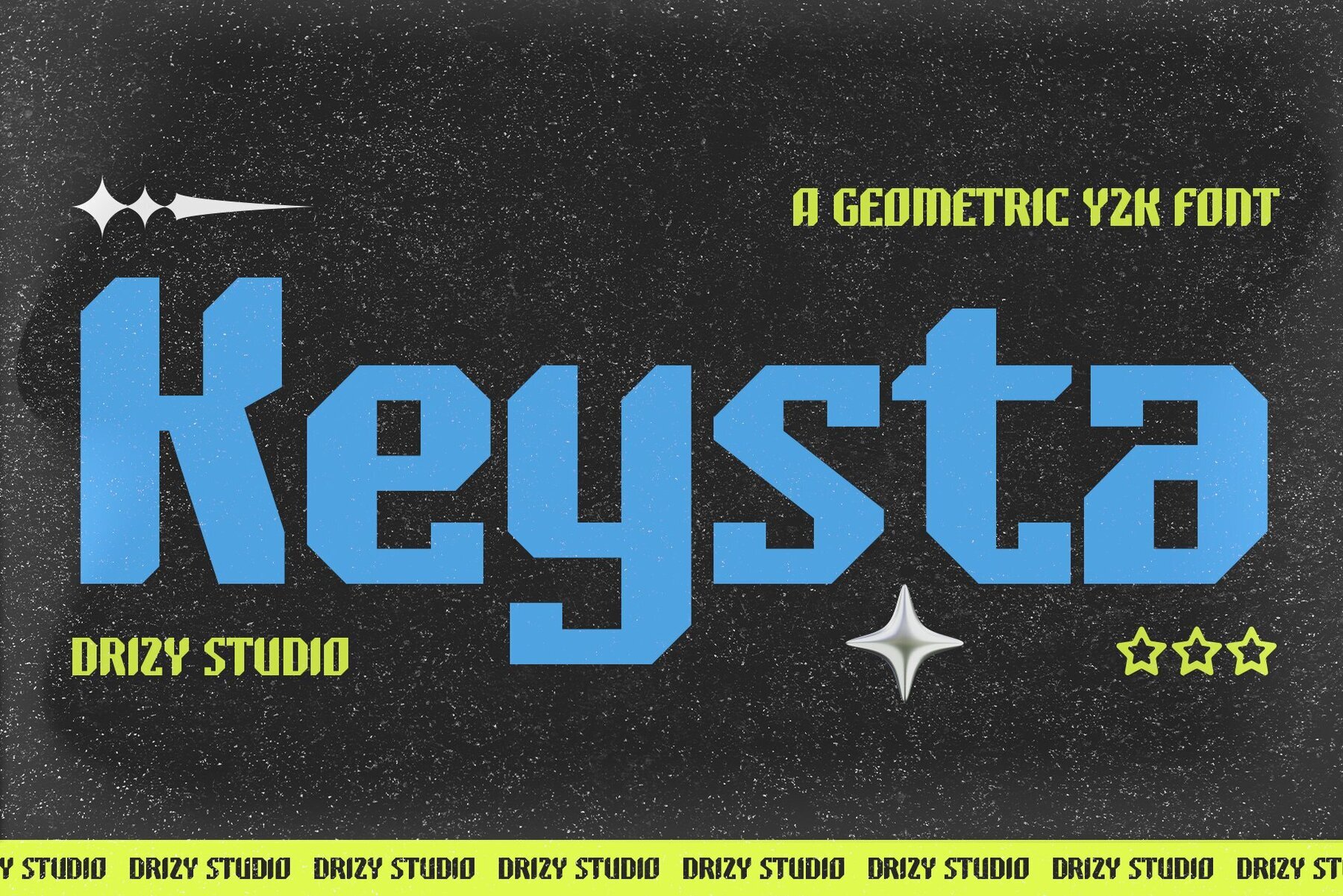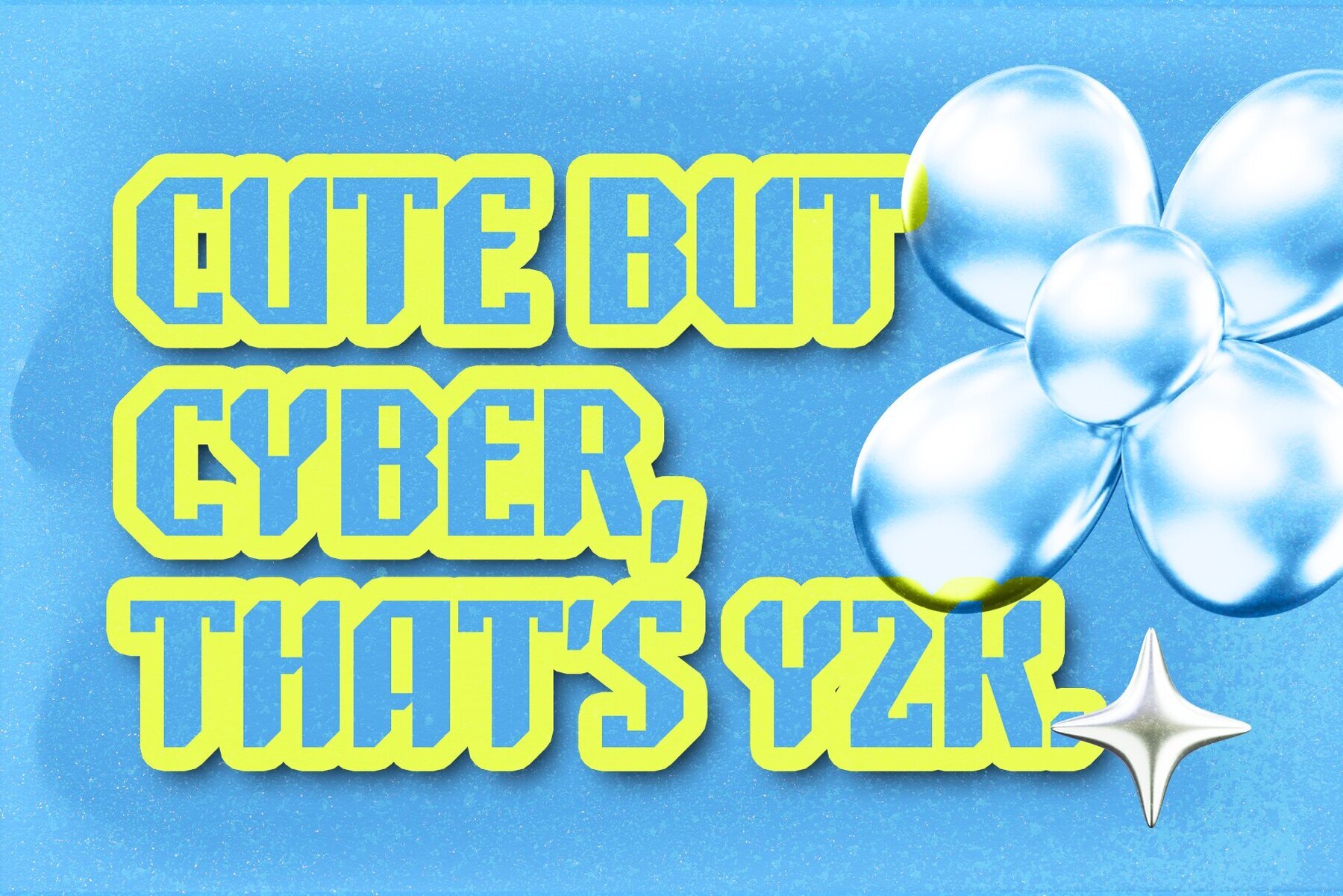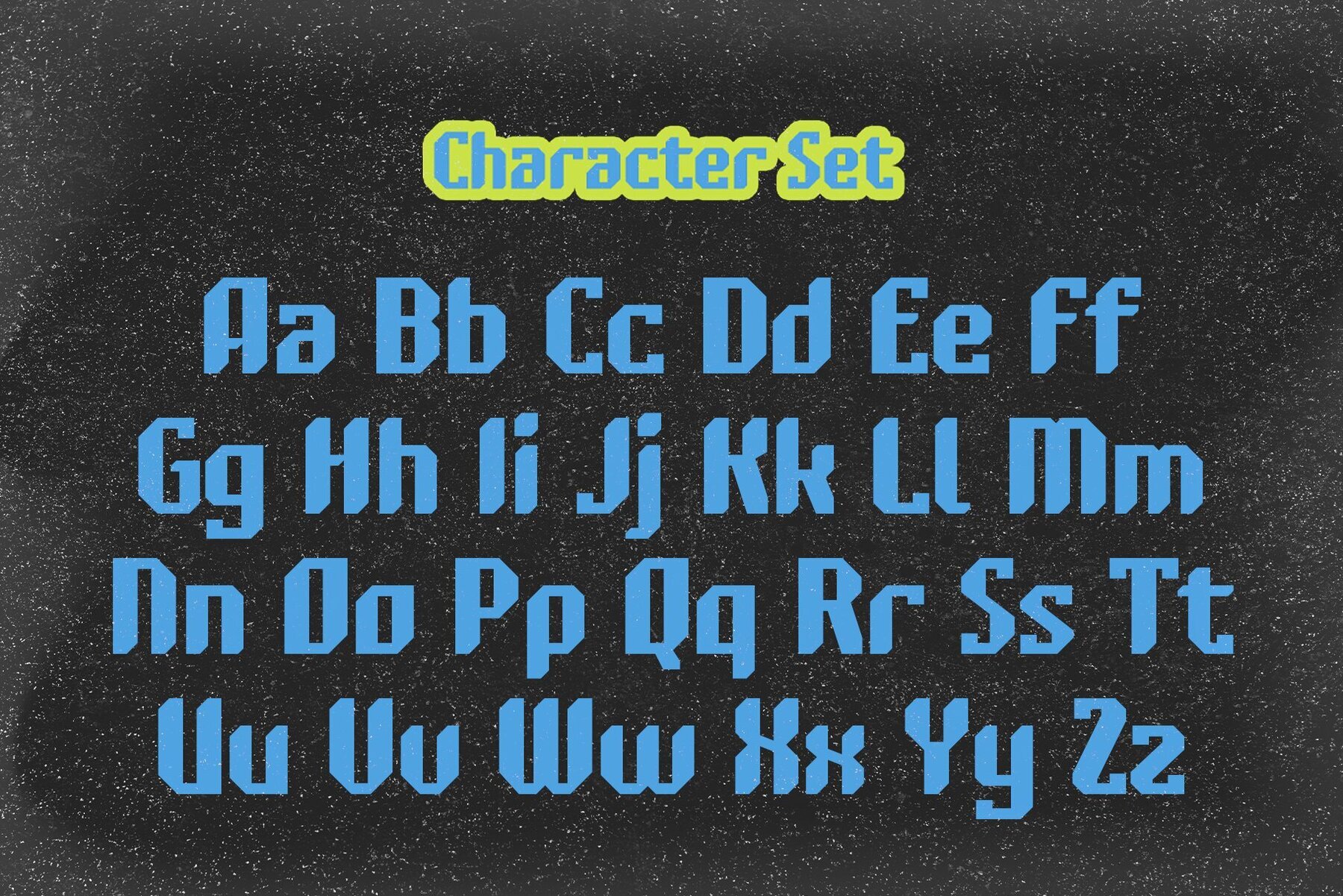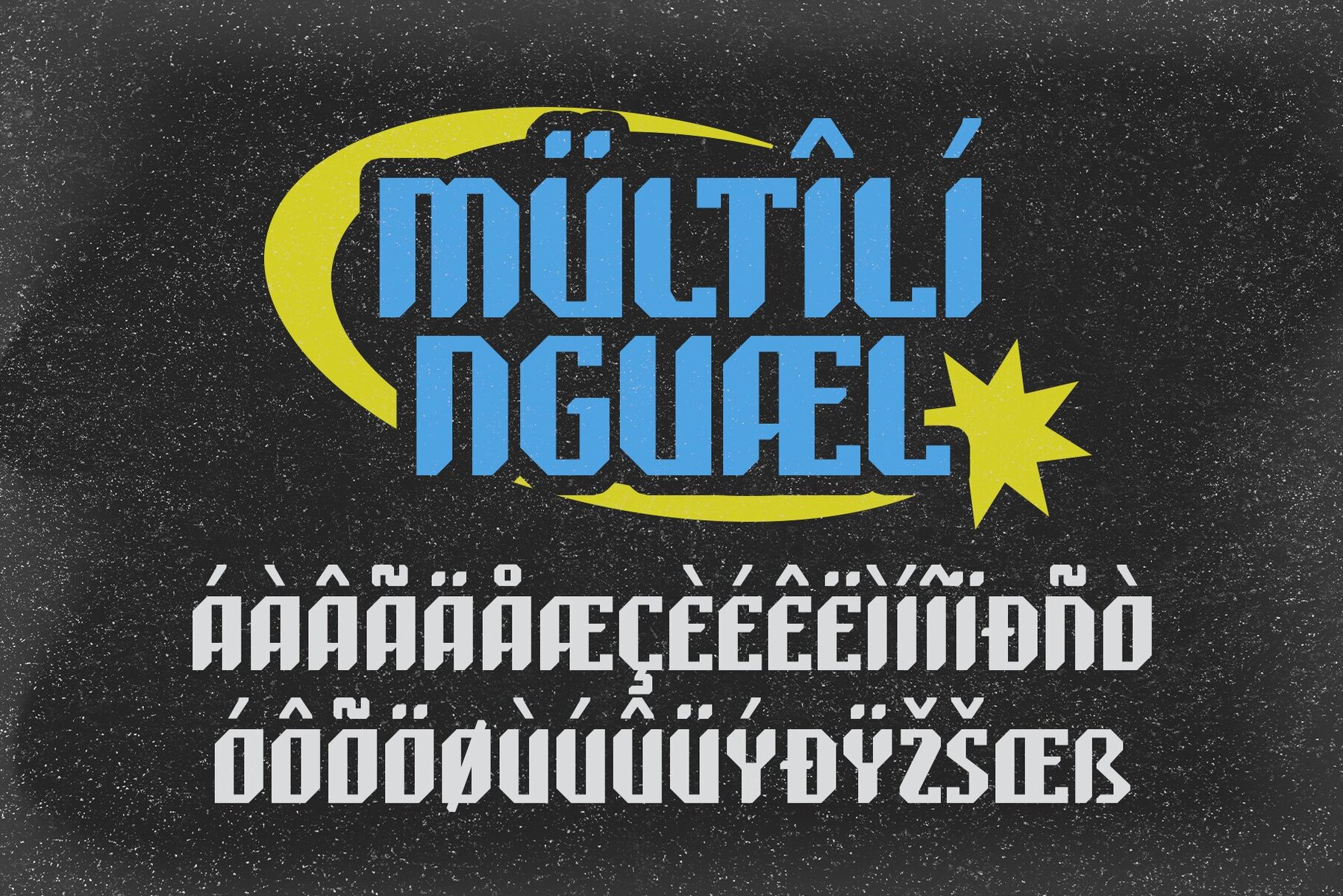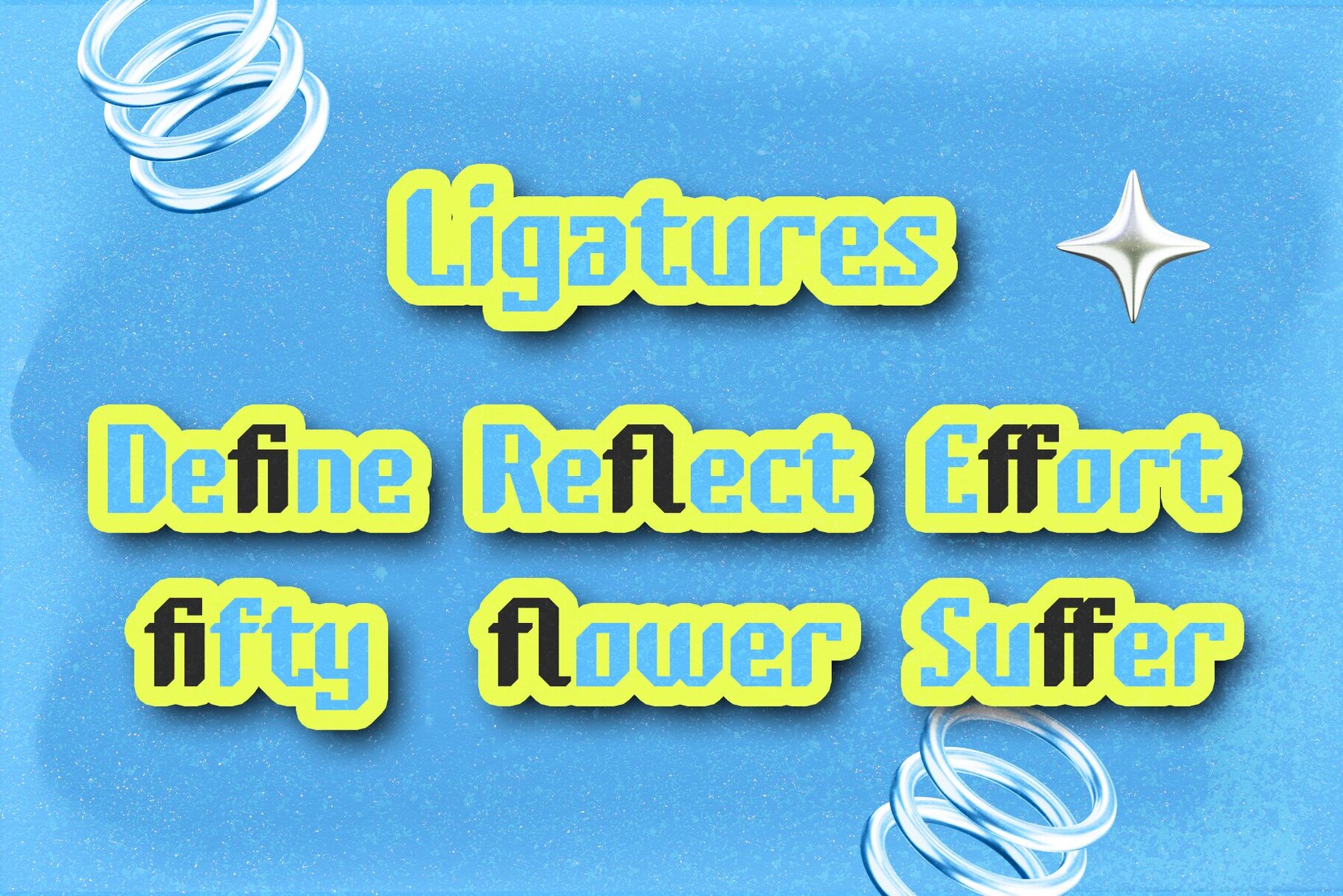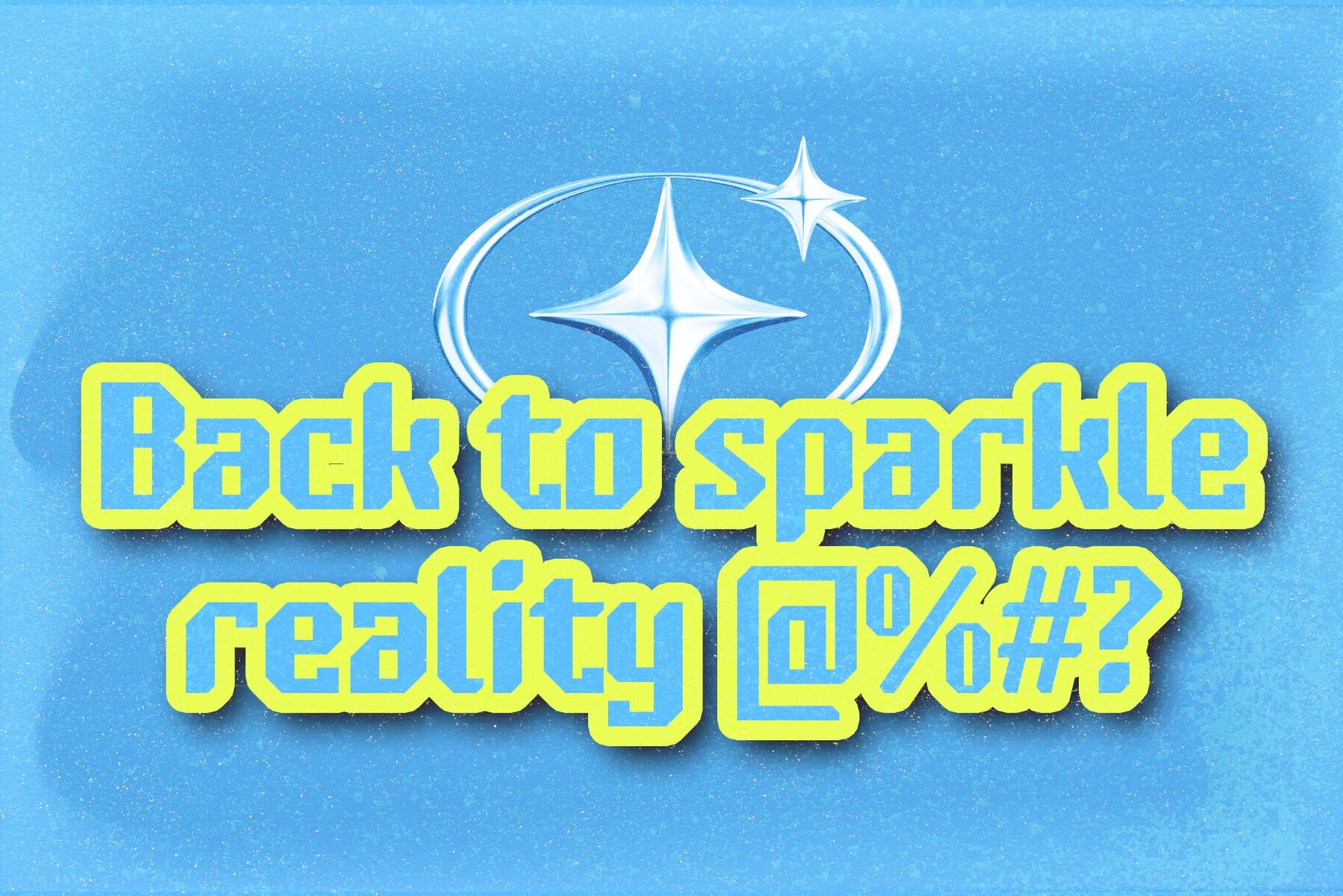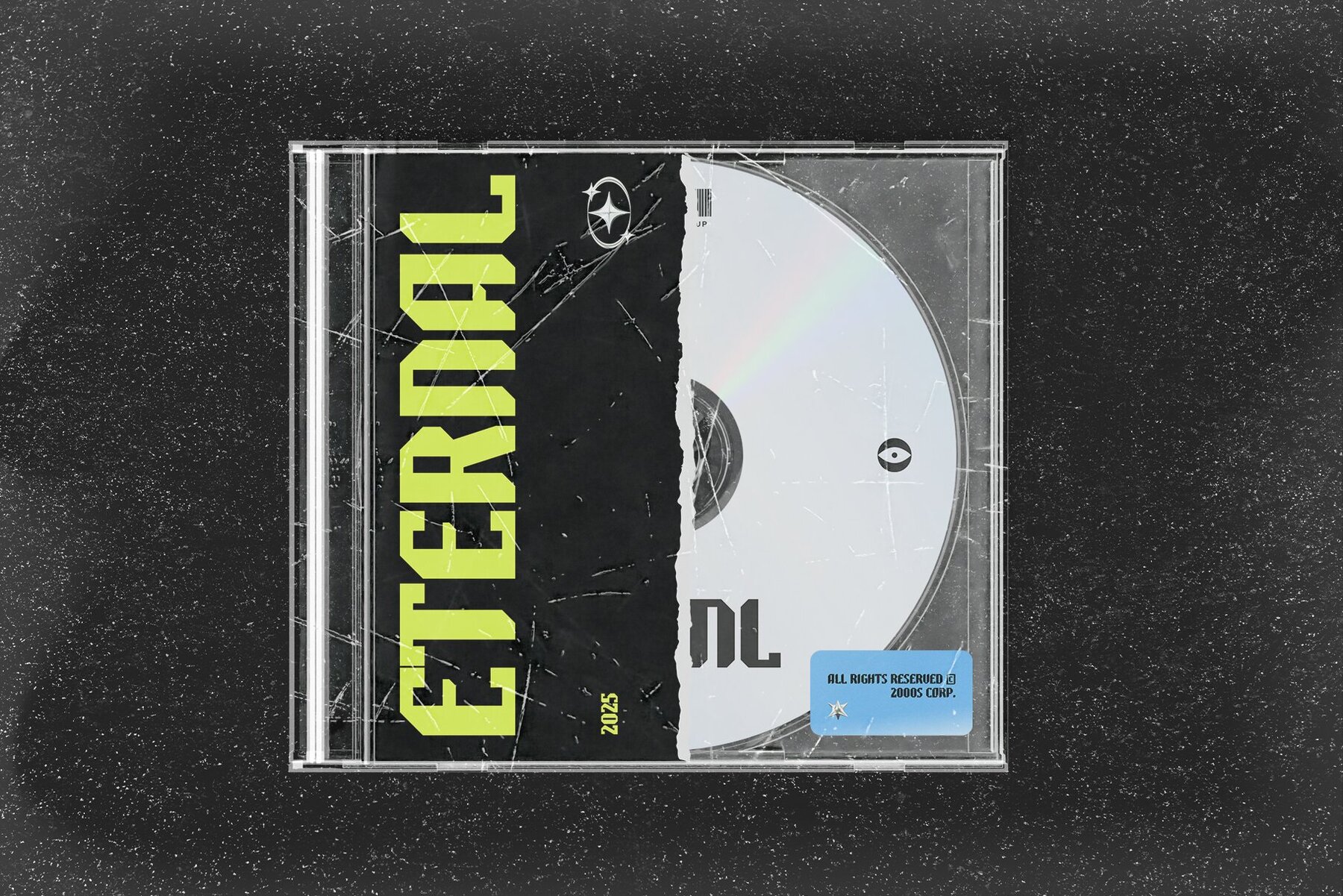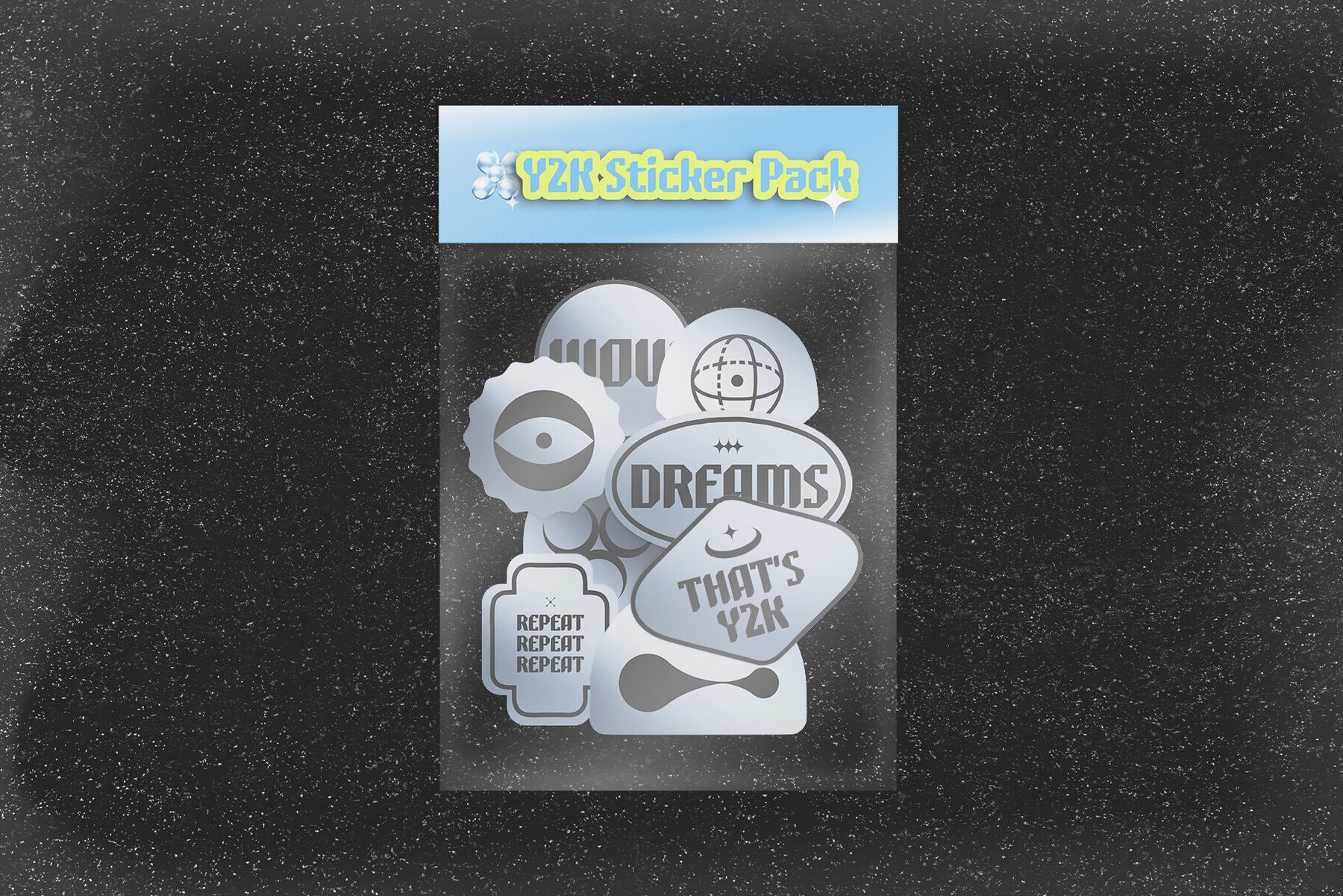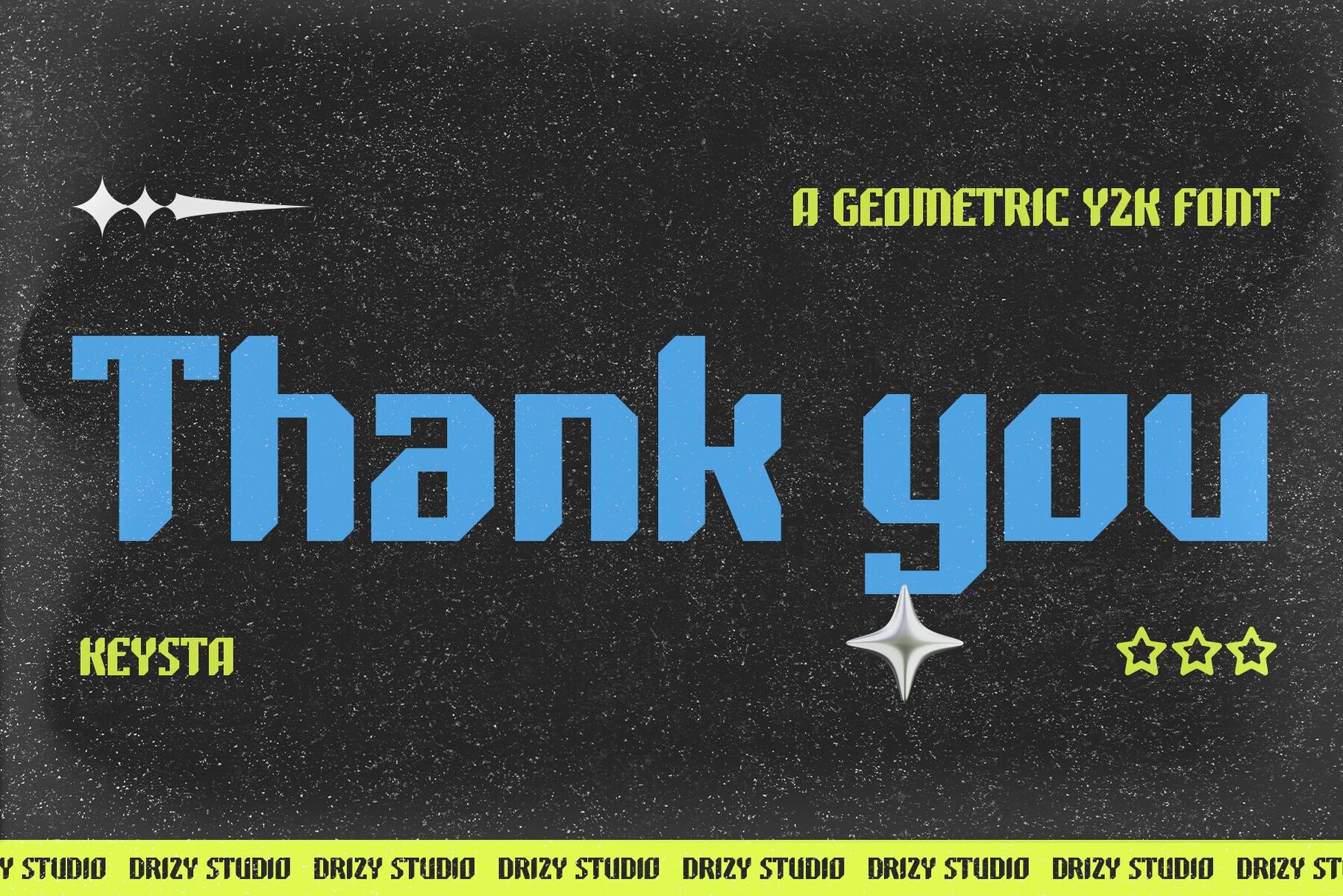
Keysta Font
Keysta Regular
Keysta is a bold geometric typeface inspired by the energetic tech and fashion scenes of the early 2000s. Its clean lines and structured shapes create a distinctive look, making it ideal for logos, posters, apparel, and standout digital designs. The font’s blend of playfulness and edge brings a modern-retro character to any project, especially those aiming for a strong Y2K influence. Designed with versatility in mind, Keysta offers sleek curves and precise geometry to help your work stand out. The font’s unique balance of nostalgia and innovation makes it an excellent choice for designers seeking a fresh yet familiar style. Bring your creative vision to life with this robust Y2K geometric font.Keysta Y2K Geometric Font